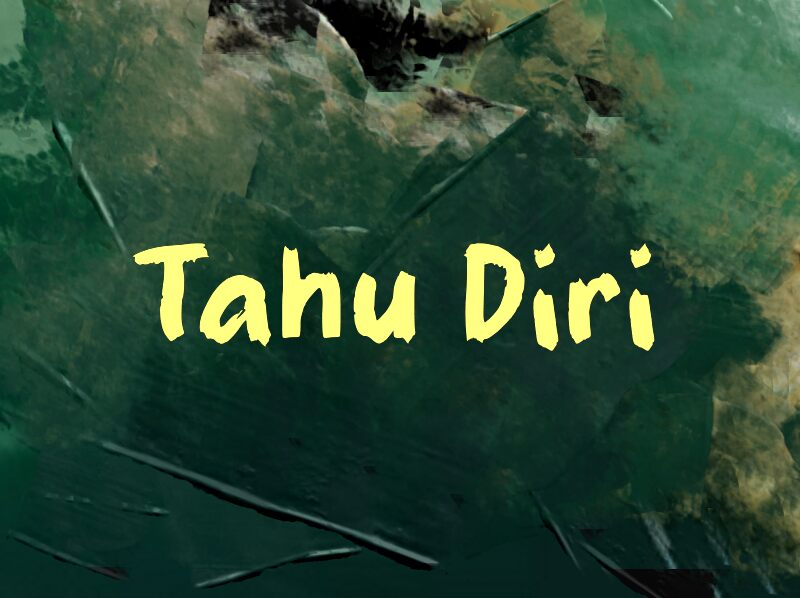
Tahu Diri
Tahu Diri font by wepfont.com is a free brush font that captures the loose, inky energy of real marker strokes without sacrificing clarity. The chunky, slightly uneven letters feel hand-painted, with rough edges and playful curves that keep text lively yet easy to read at a glance. It’s bold enough to stand on its own, so your message doesn’t get lost in overly fussy details.
Using Tahu Diri, you can bring a warm, handmade feel to street-food branding, poster titles, social media graphics, kids’ event flyers, YouTube thumbnails, or crafty product packaging. This free font shines when used large, letting the textured strokes really show; pair it with a clean geometric sans for body text to keep everything balanced and readable.